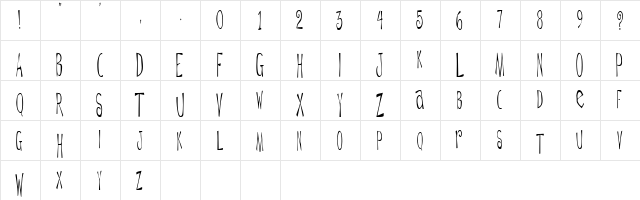
Daytripper Plain
Design Context for Daytripper Typeface
Daytripper is a composed and adaptable typeface that performs quietly and consistently across a wide range of design contexts.